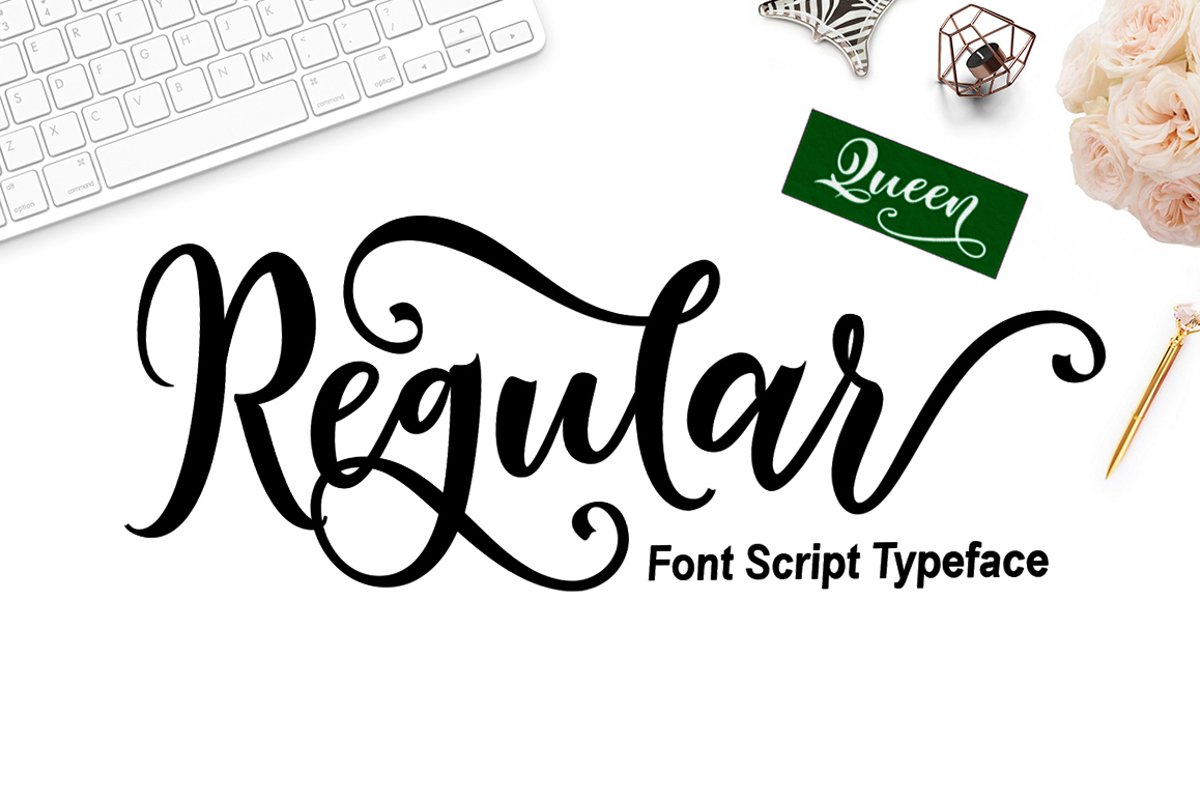
Regular Queen
Regular Queen is a font was handwritten beautiful with a thin line like
original handwriting. very suitable for logos, brands, posters, daily
moodboard, daily quotes, Instagram stories, blog posts and many
more interesting.
Regular Queen includes full set of gorgeous uppercase and lowercase
letters, numerals, a large range of punctuation. All lowercase letters
include beginning and ending giving realistic hand-lettered style.